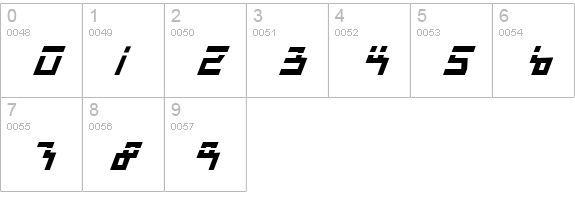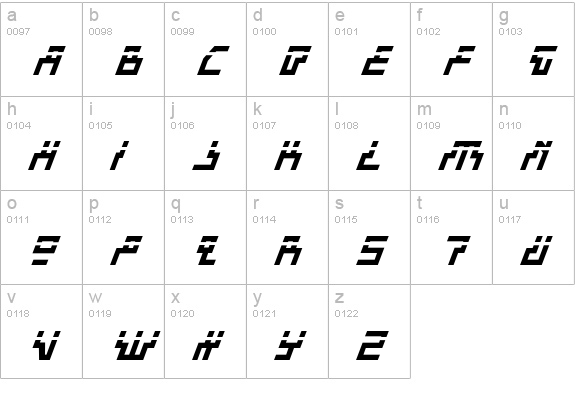
Beam Rider Bold Italic Laser is a strong, high-contrast, italic variant in the Beam typeface family \xE2\x80\x94 well suited to headlines, attention-grabbing titles, and strong calls-to-action.
Introducing Beam Rider Bold Italic Laser font - a futuristic and dynamic typeface that exudes energy and modernity. This cutting-edge font is designed to captivate and impress, perfect for projects that require a bold statement. The striking bold italic style of Beam Rider Bold Italic Laser font adds a touch of sophistication and creativity to any design. And the best part? This remarkable font is available for free download at FontsMarket.com. With its sleek lines and unique personality, Beam Rider Bold Italic Laser font is sure to make your designs stand out. Don't miss out on the opportunity to enhance your projects with this eye-catching and stylish font. Download it now and let your creativity shine!